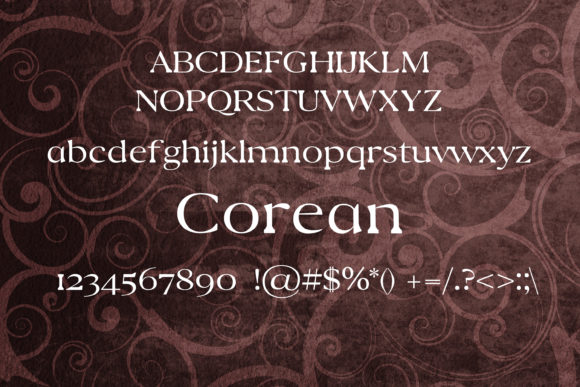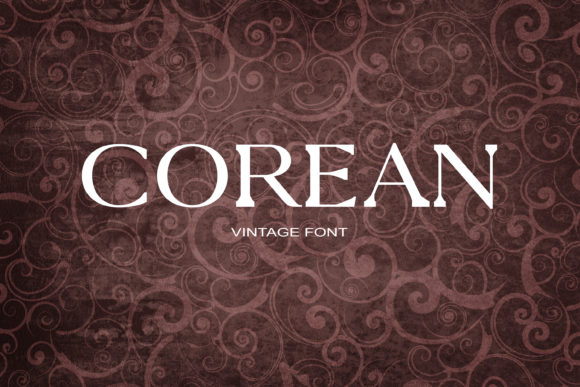
Introducing Corean Font: Elevate Your Designs with Sophistication
Are you tired of using the same old fonts in your designs? Do you want to add a touch of elegance and sophistication to your work? Look no further than Corean Font, a thin and refined serif typeface that is sure to make your designs stand out.
The Characteristics of Corean Font
Corean Font is a carefully crafted serif typeface that exudes refinement and poise. Its thin lines and delicate curves make it perfect for designs that require a touch of sophistication. The font features:
- Thin and delicate lines: Corean Font’s slender lines make it ideal for use in designs where a subtle touch is required.
- Sophisticated serif details: The font’s serif details add a touch of elegance and refinement to any design.
- High readability: Despite its thin lines, Corean Font remains highly readable, making it perfect for use in body text and headings.
Why Choose Corean Font?
So why should you choose Corean Font for your next design project? Here are just a few reasons:
- Unique and distinctive: Corean Font is a one-of-a-kind typeface that will set your designs apart from the crowd.
- Versatile: The font is suitable for use in a wide range of designs, from luxury branding to elegant stationery.
- Easily customizable: Corean Font can be easily customized to suit your design needs, making it perfect for use in a variety of contexts.
Using Corean Font in Your Designs
Corean Font can be used in a variety of design applications, including:
- Branding and logos: The font’s sophisticated and elegant design makes it perfect for use in luxury branding and logos.
- Print design: Corean Font is ideal for use in print designs, such as business cards, stationery, and brochures.
- Digital design: The font can also be used in digital designs, such as websites, social media graphics, and email marketing campaigns.
Tips for Pairing Corean Font with Other Fonts
When pairing Corean Font with other fonts, here are a few tips to keep in mind:
- Pair with bold fonts: Corean Font’s delicate lines can be paired effectively with bold fonts to create visual interest and contrast.
- Pair with sans-serif fonts: The font’s serif details can be paired effectively with sans-serif fonts to create a clean and modern look.
- Experiment with font sizes: Don’t be afraid to experiment with different font sizes to create visual hierarchy and emphasis.
In conclusion, Corean Font is a sophisticated and refined serif typeface that is perfect for designers and crafters looking to add a touch of elegance to their work. With its thin lines, delicate curves, and high readability, Corean Font is sure to make any design stand out. Whether you’re working on a luxury branding project or a simple stationery design, Corean Font is a versatile and effective choice.